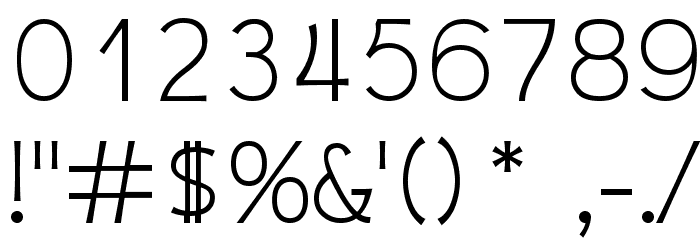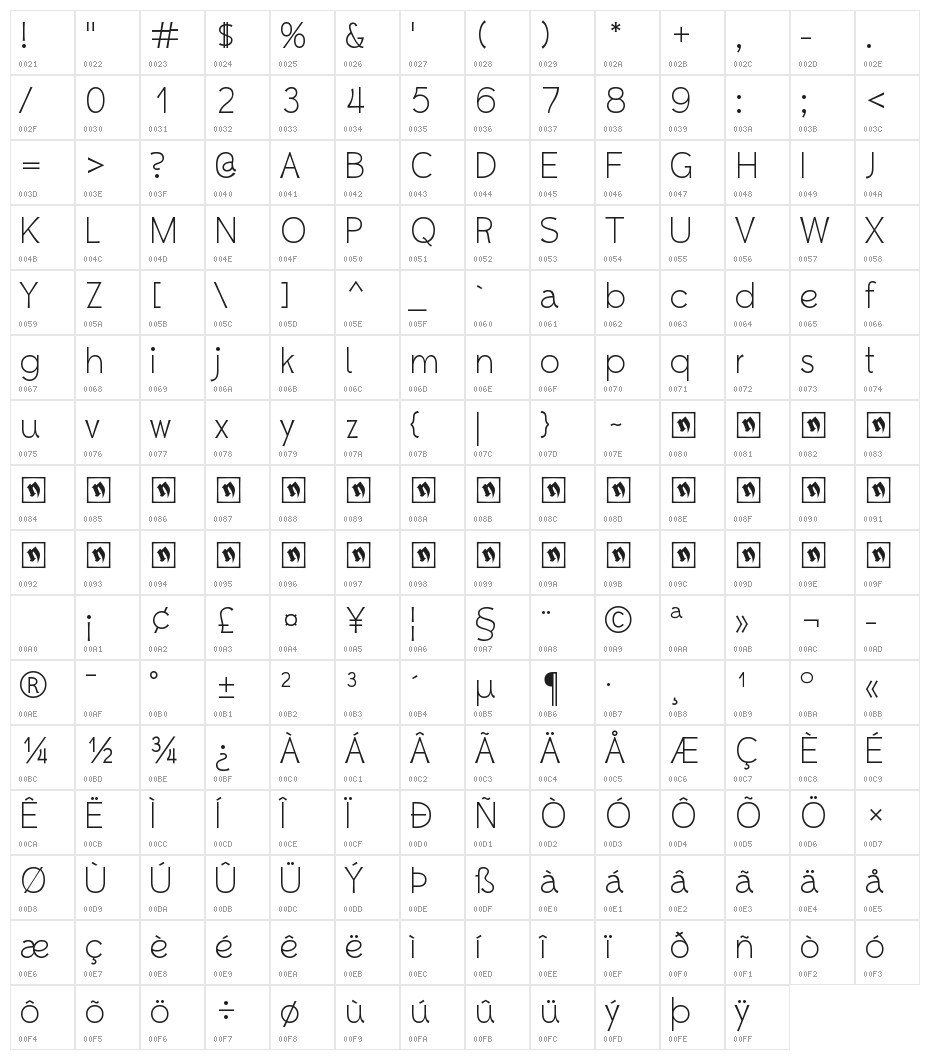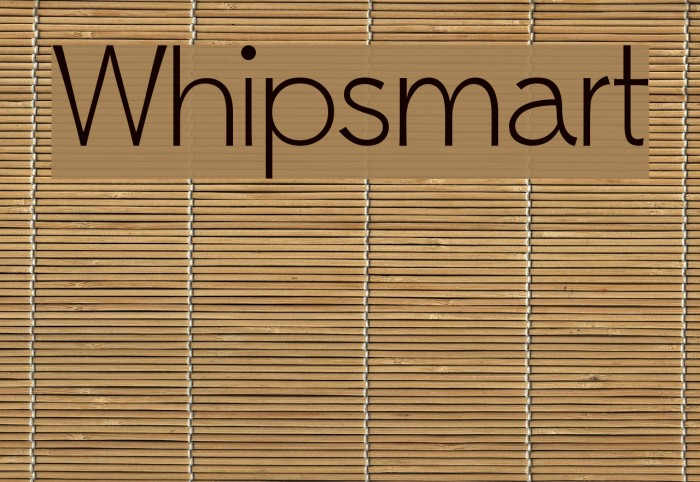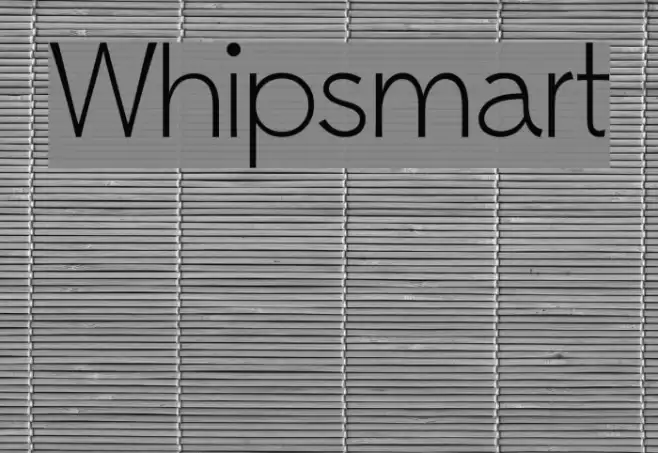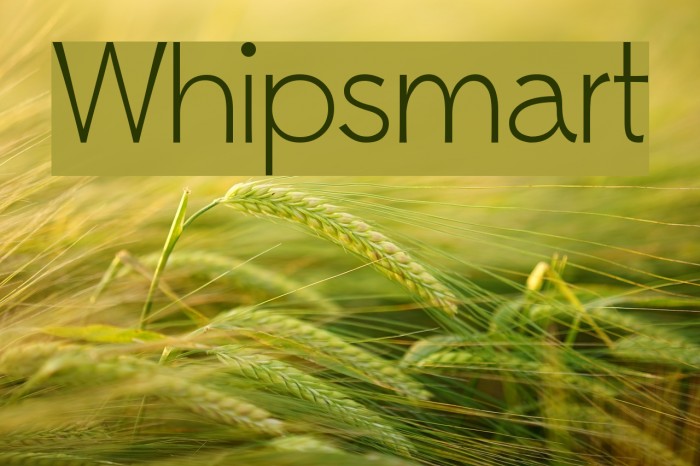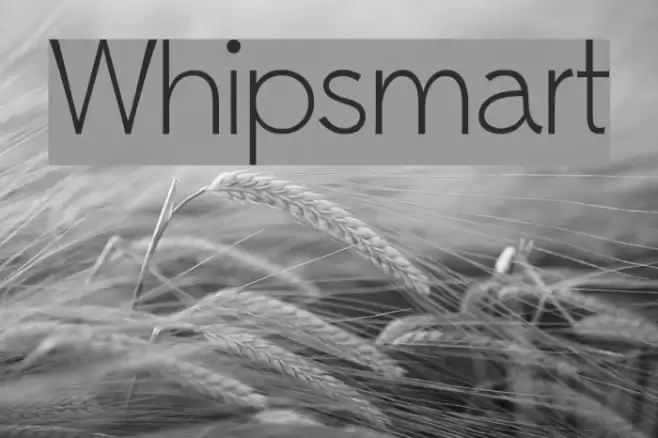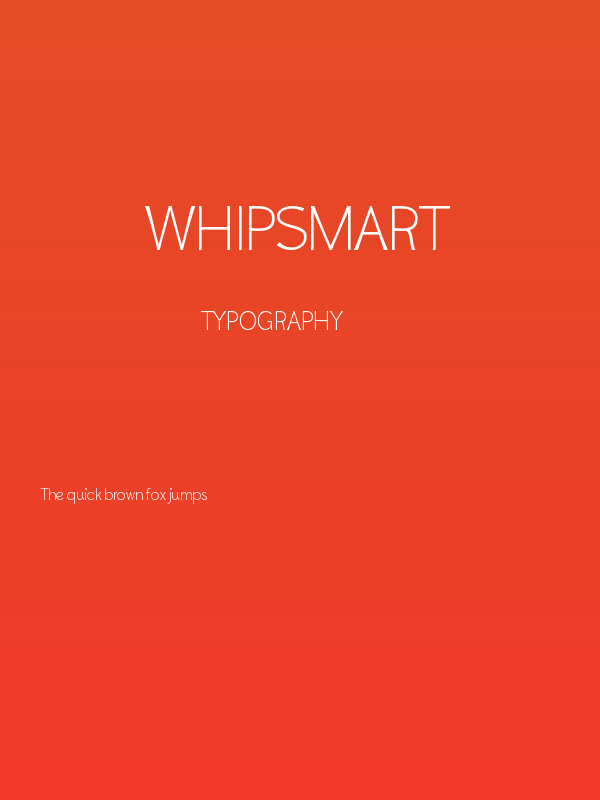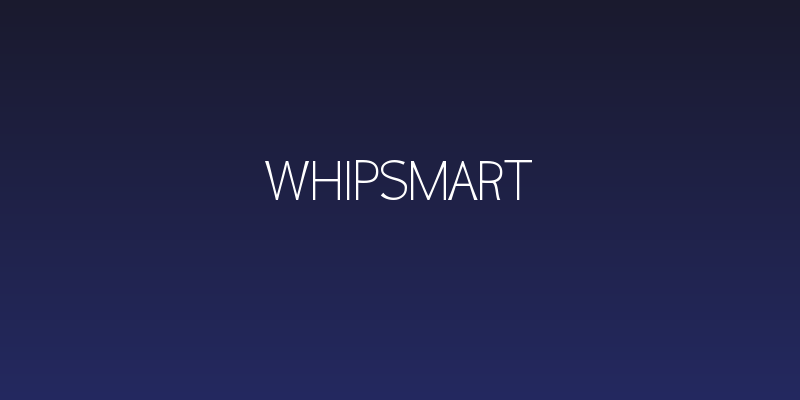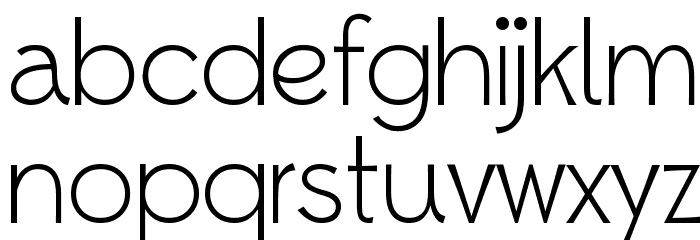
Whipsmart Font
This font is a sleek and modern sans-serif typeface characterized by its clean lines and geometric shapes. The uppercase letters are tall and elegant, while the lowercase letters maintain a consistent height, providing a harmonious balance. The numerals are straightforward and easy to read, making them suitable for various applications. Special characters are designed with simplicity in mind, ensuring they blend seamlessly with the rest of the typeface. The overall design is minimalistic, making it versatile for both digital and print media.